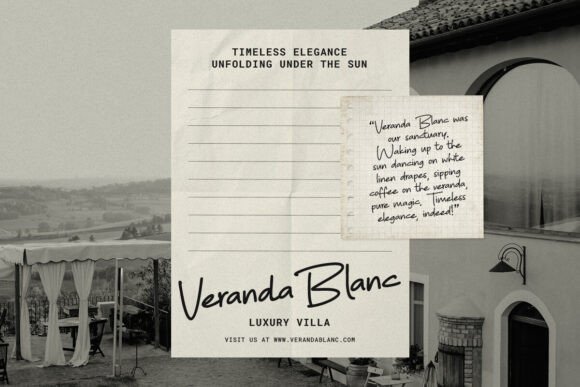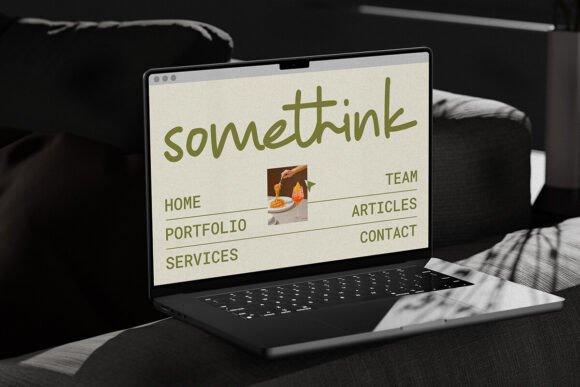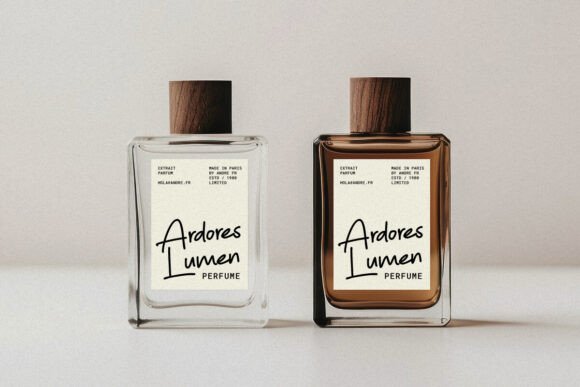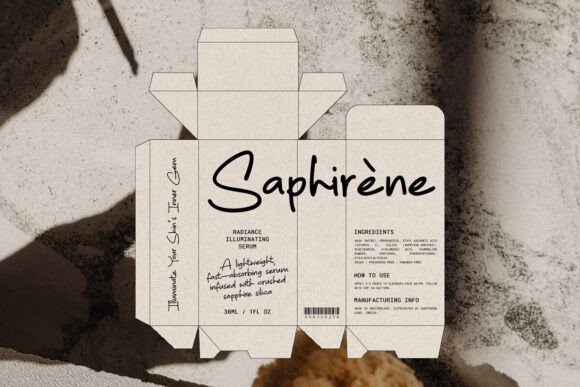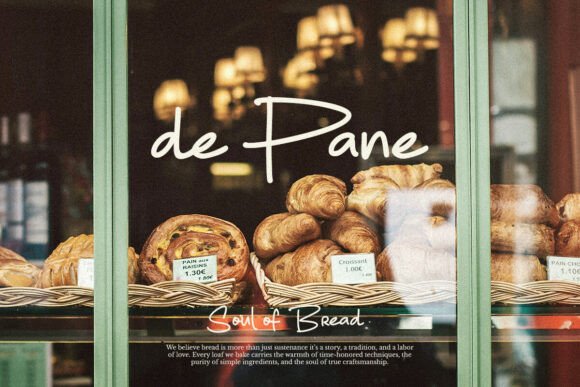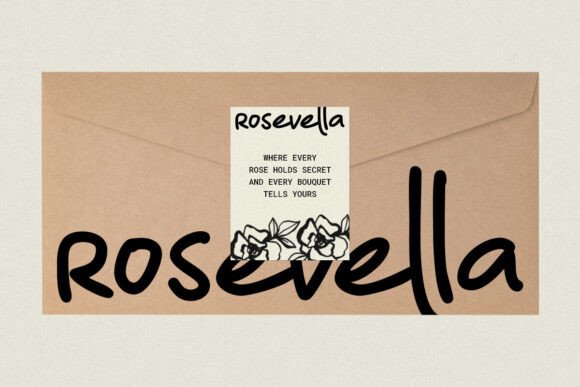
Introduction to Jacknote Font
Have you ever found yourself scribbling notes in a coffee shop, the sound of a pen scratching against paper the only accompaniment to your thoughts? For designers, this moment of creative expression is what drives us to bring our ideas to life. And now, with the Jacknote Font, you can capture that same essence in your digital designs.
This dynamic and expressive handwritten font is designed to add personality and warmth to your projects, making it the perfect addition to any creative endeavor. Whether you’re working on personal notes, branding, or digital content, the Jacknote Font delivers an authentic and natural look that’s sure to captivate your audience.
Key Features of Jacknote Font
- Includes a unique and stylish font, ideal for use in various design contexts.
- Features a transparent background, allowing for easy customization and layering.
- Designed to be highly legible, with clear and crisp typography at various resolutions.
Honest Review: Jacknote Font
As a designer, I’m always on the lookout for high-quality design resources to elevate my creative projects. The Jacknote Font caught my eye with its unique and modern aesthetic.
Here’s what I like about it:
- ✨ The font’s clean lines and minimalist design make it perfect for a variety of projects, from logos to digital products.
- ✨ The transparent background makes it easy to integrate into any design without any hassle.
- ⚠️ The font’s versatility is somewhat limited by its simplicity, making it less suitable for complex or bold designs.
Overall, I’d say the Jacknote Font is a solid addition to any designer’s toolkit, especially for free. Its clean design and versatility make it perfect for a range of creative projects, and the free download is a definite plus. However, be aware of the limitations on commercial use and the font’s simplicity, which may not be suitable for all designs.
The Jacknote Font is a high-quality, versatile design resource perfect for creative projects. With its clean and modern design, this font is ideal for various applications.
Tips for Getting the Most Out of Jacknote Font
To get the most out of the Jacknote Font, consider the following tips:
- Use the font in conjunction with a transparent background for a clean and modern look.
- Combine the font with other design elements, such as images and graphics, to create a cohesive design.
The Jacknote Font is suitable for various design projects, including:
- Logos and branding materials.
- Brochures and flyers.
- Business cards and stationery.